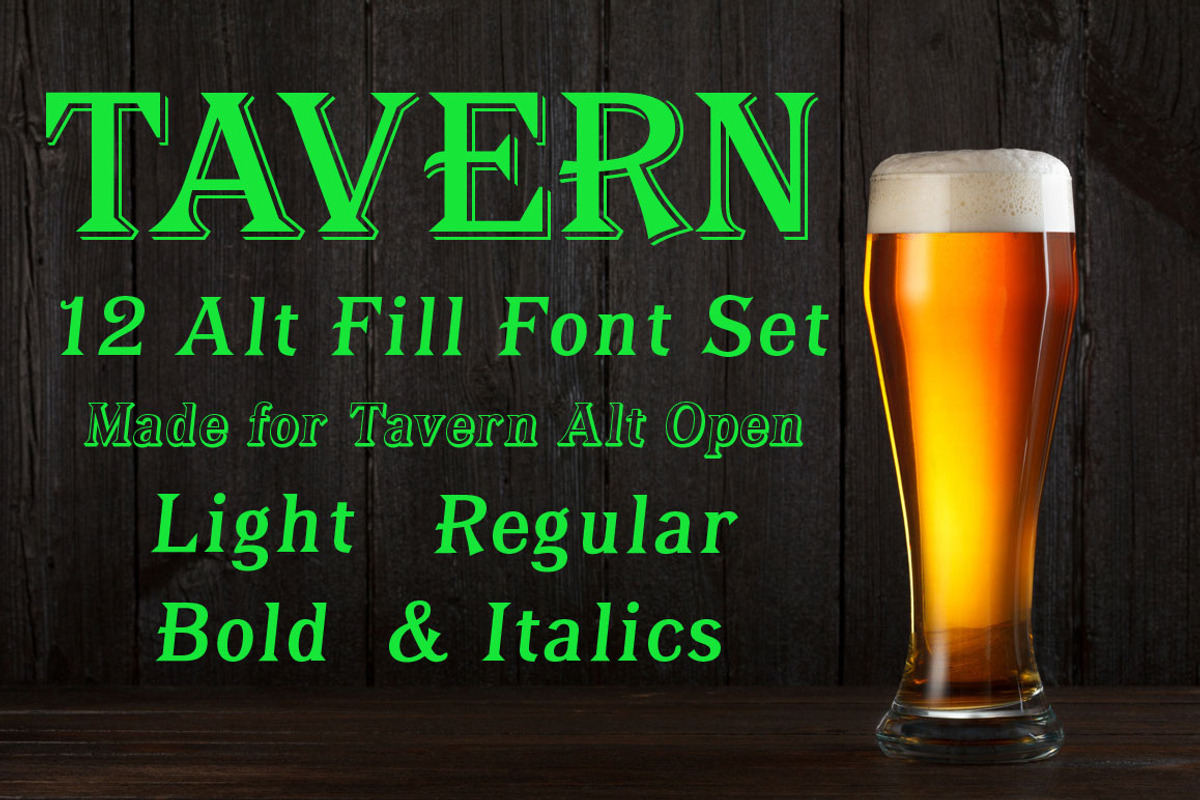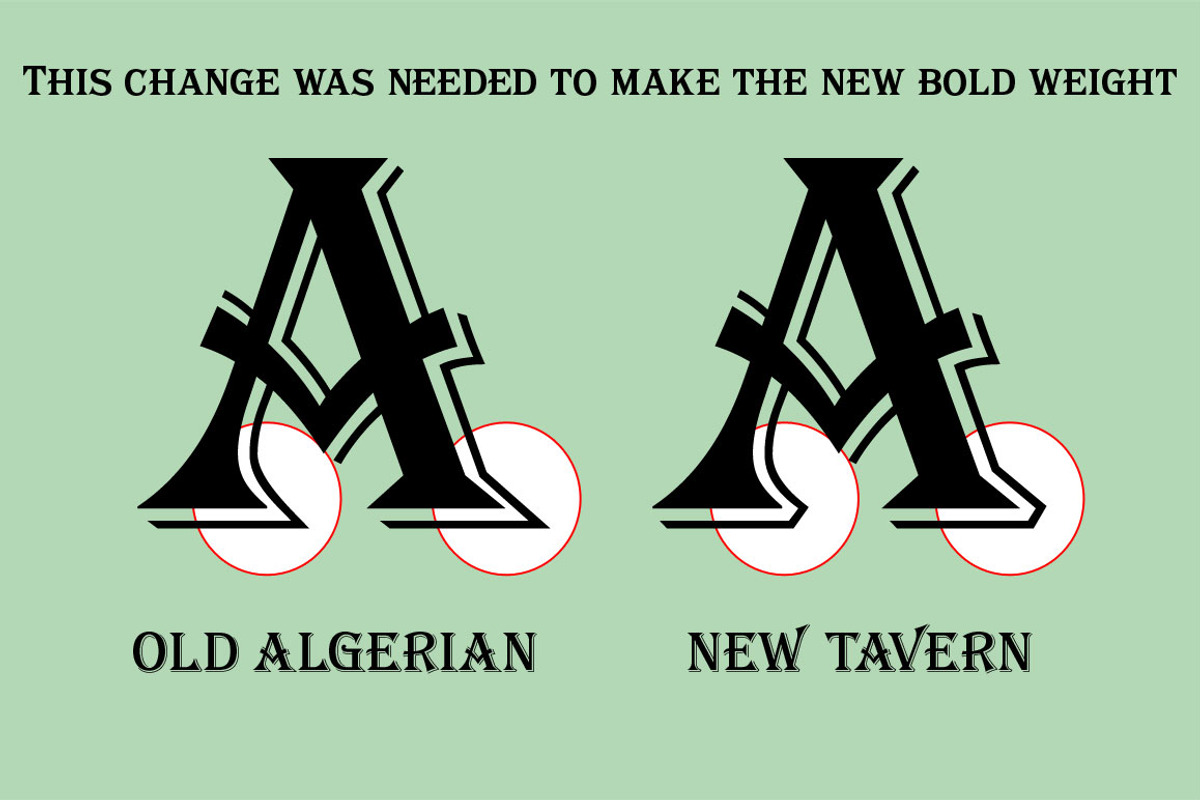
Tavern Alt Fill Font Set
Tavern Alt Fill Font Set by FontMesa is a font selected for branding, posters, packaging, typography.
- The X in Tavern X stands for higher X-height, we've taken our standard lowercase and raised it for greater visibility in small text and for
- The original font encountered this problem on the uppercase E, L and Z, their solution was a diagonal cut corner which was now needed across
- The alternate version came about after seeing the regular version used as a logo and secondary text on a major product label.
- I felt that some of the features of the regular version didn't look good as smaller secondary text, this gave me the idea to create an alter
- But don't stop there, the alternate version can be used as a logo too and feel free to exchange letters between both regular and alternate v
- Where are the original alternates from Algerian?
Why Tavern Alt Fill Font Set is worth a look
Tavern Alt Fill Font Set by FontMesa fits naturally into Branding, posters, packaging, typography.